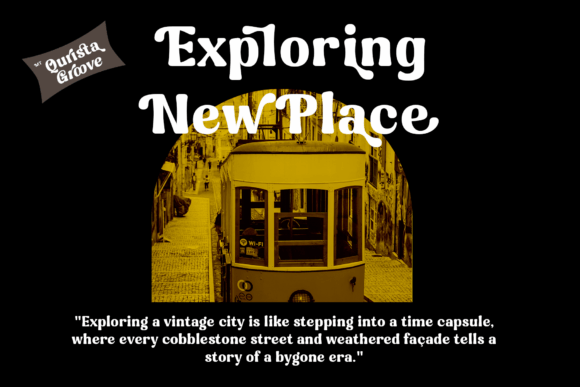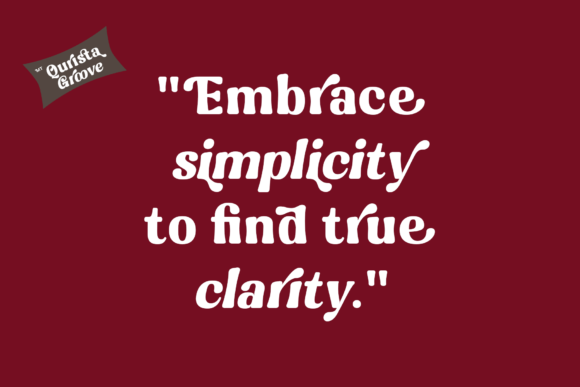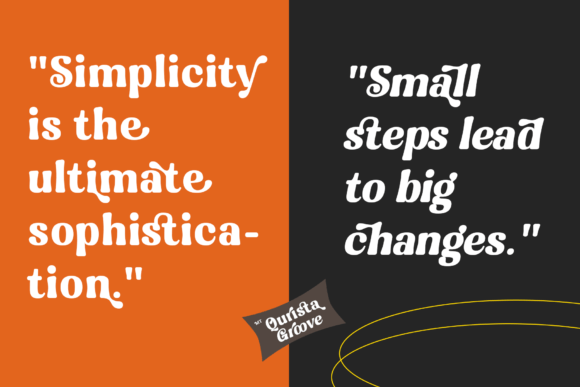
Introduction to Mt Qurista Groove Font
Introducing MT Qurista Geoove, a serif font that elegantly blends classic sophistication with modern groove style.
Perfect for a variety of projects, from branding and editorial design to web and advertising, Geoove offers a comprehensive character set, high-quality glyphs, and optimized kerning for enhanced readability and visual appeal Elevate your designs with Geoove’s unique charm and contemporary edge.
Key Features of Mt Qurista Groove Font
Why Choose Mt Qurista Groove Font?
Mt Qurista Groove Font offers exceptional quality and versatility, making it a valuable addition to your design toolkit. Whether you’re creating for personal projects or commercial use, Mt Qurista Groove Font delivers professional results.